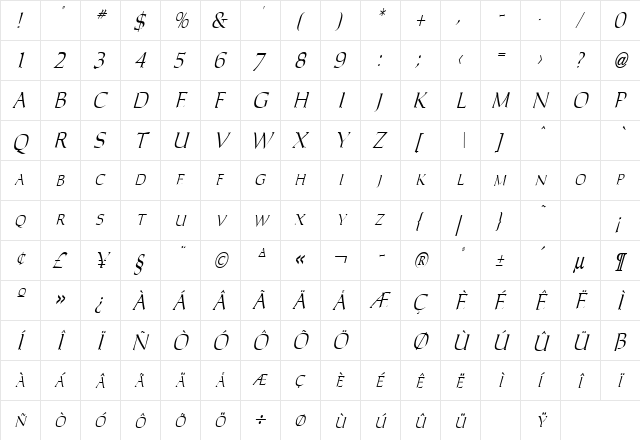
Long Italic Regular
Design Context for Long Italic Typeface
Long Italic is a composed and adaptable typeface that performs quietly and consistently across a wide range of design contexts. The dynamic lean of this cut emphasises speed and emphasis in any layout.
Pro Tip: Use Long Italic for emphasis, pull quotes, and subheadings where its slanted energy can add rhythm to the layout.